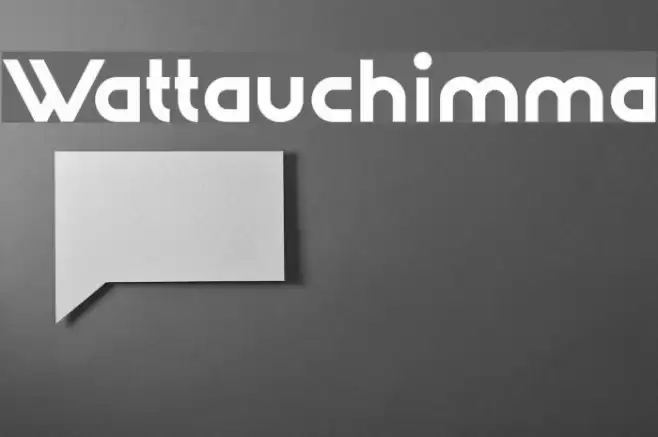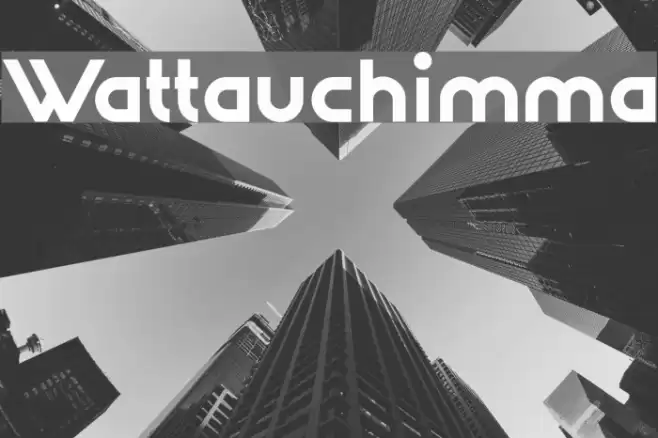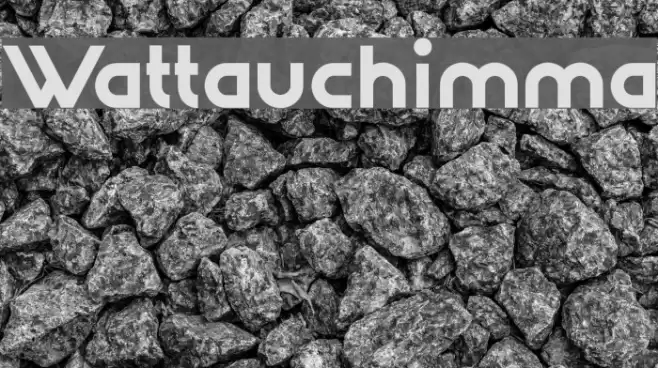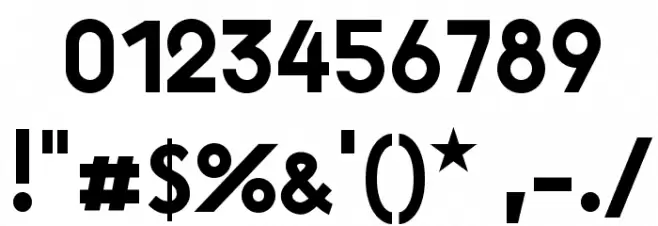
This font features a bold and geometric design, characterized by its strong lines and modern aesthetic. The uppercase letters are particularly striking, with a unique angularity that gives them a futuristic feel. The lowercase letters maintain a consistent style, offering a smooth and cohesive look. Numbers are clear and easy to read, making them suitable for various applications. Special characters are well-integrated, ensuring versatility in design projects. The overall appearance is clean and contemporary, making it ideal for modern branding and design.
A bold, geometric font with a modern and futuristic style from Uncategorized fonts.
- Proposed Projects: Ideal for branding, advertising, headlines, and digital media projects.
- Use Case: Headlines, Logos, Branding